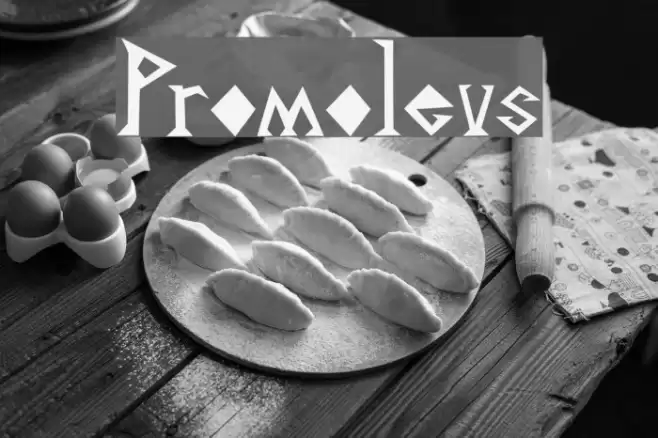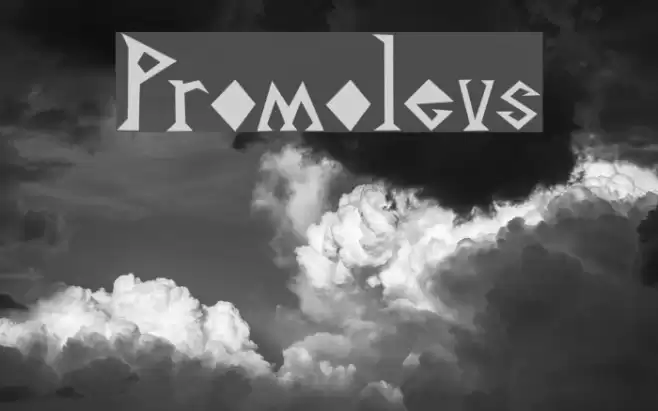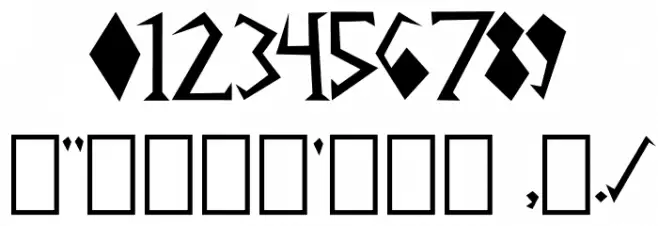
Promoleus Font
Promoleus Description
This font features a highly decorative and angular design, characterized by sharp edges and geometric shapes. The uppercase letters exhibit a bold and striking appearance, with each character having unique, jagged elements that give it a dynamic and edgy feel. The lowercase letters maintain this angular style, creating a cohesive look throughout the alphabet. Numbers and special characters follow the same design principles, ensuring consistency. The font's overall aesthetic is reminiscent of a modern, abstract art style, making it suitable for creative and unconventional projects.
A decorative, angular font with sharp edges and geometric shapes from Uncategorized fonts.
- Overall Style: Modern, Decorative